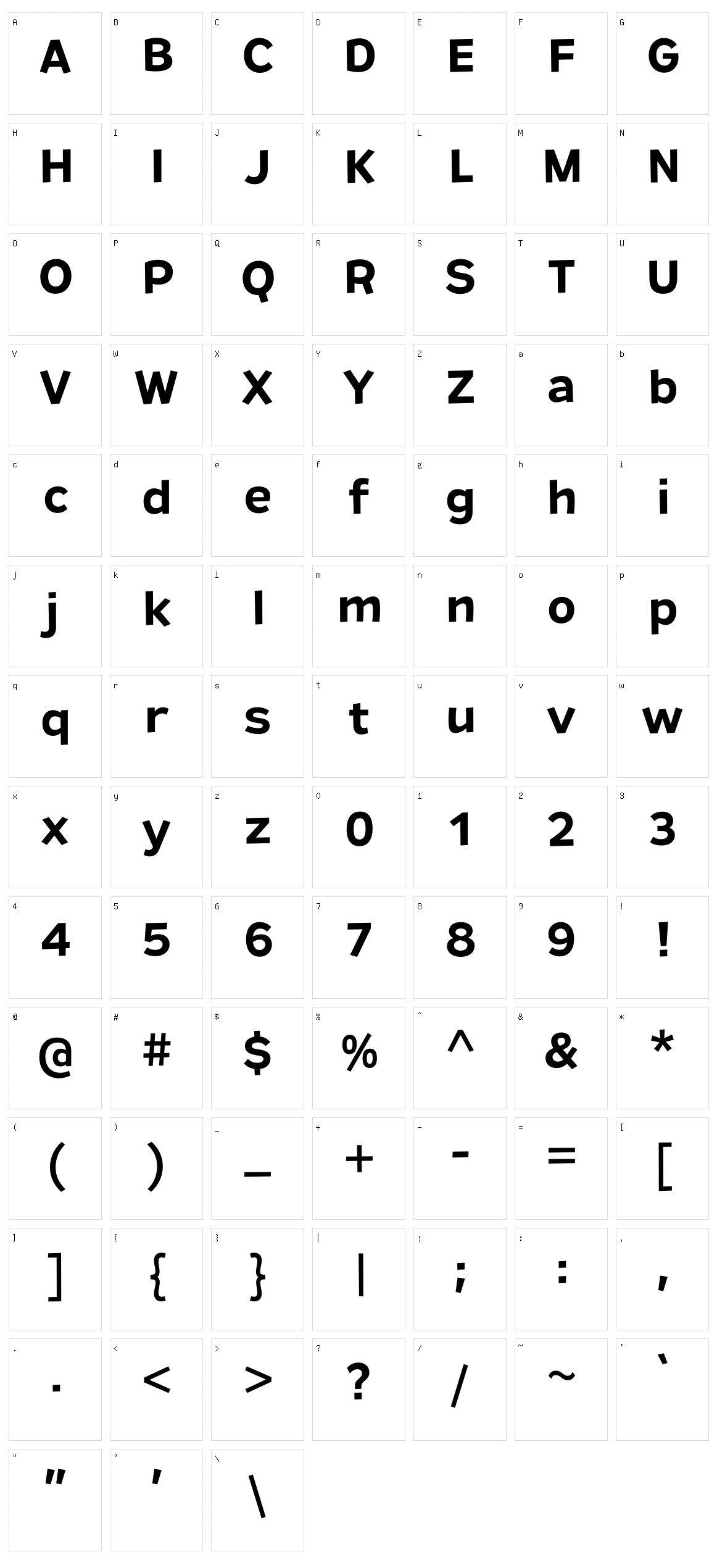
The free font Remissis is carefully designed by Typodermic Fonts, showcasing a thoughtful balance of creativity and usability and falls under the Sans serif font style. When you download the ZIP file, it contains only 200.88 KB of font files, making it lightweight and quick to download. Please review the license details below to understand permitted usage and distribution rights. If license information is not available, we recommend using this font for personal projects only or contacting the author directly for commercial usage permissions.